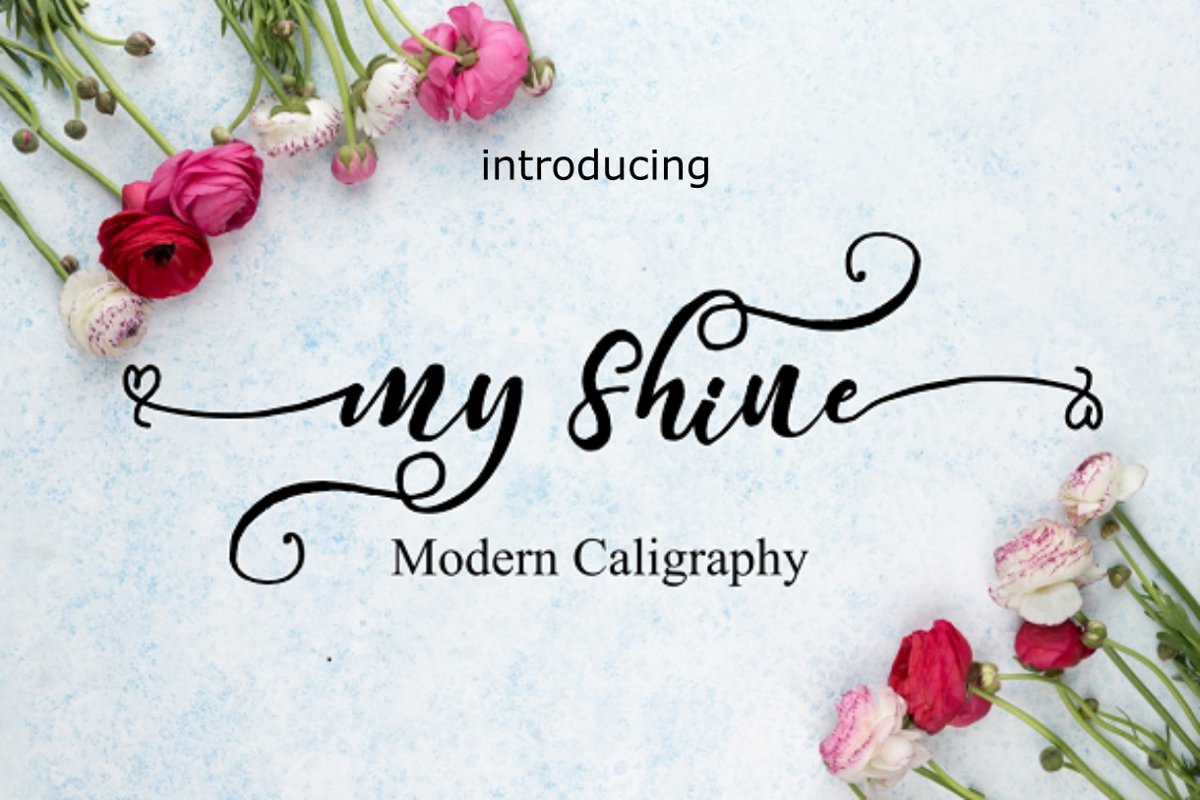
My Shine
My Shine is a stunning handwritten font carefully created with a touch of elegance. This font is PUA encoded which means you can access all of the beautiful glyphs and swashes with ease! It also features a wealth of special features including alternate glyphs and Fall in love with its gorgeous swashes!